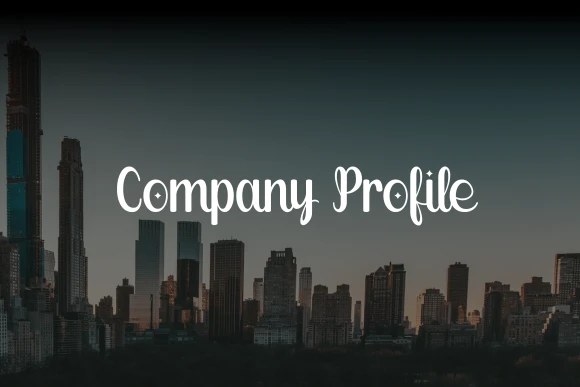
Celebrate milestones in style with the Graduation Font, a classic and versatile typeface perfect for diplomas, certificates, school event invitations, yearbooks and graduation announcements. Its clean, formal look makes it ideal for designs that need a touch of prestige and professionalism. Whether you’re creating certificates, social posts or keepsakes, the Graduation Font adds an academic yet elegant feel to every project.